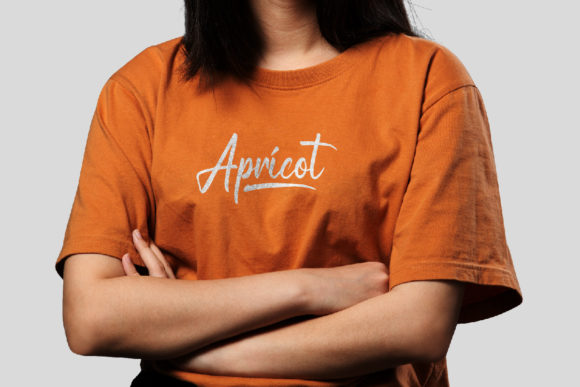
Neadless Font
db-ku.com - Script & Handwritten -- Neadless is a brushed and subtle handwritten font that is crafted with great care for maximum results. It will add elegance and class to any of your design projects. This font is PUA encoded which means you can access all of the glyphs and swashes with ease.